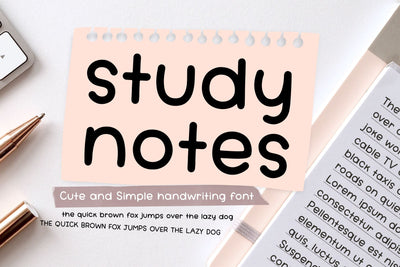
Study Notes - Cute Handwriting Font
Study Notes is a neat, clean and cute handwritten font. You can use this font in various projects - blog posts, logos, branding, digital planner, digital notes, invitations, greeting cards, planners, digital journal, photo albums, study notes, school notes, college notes, decorations and much more. Its authentic look and feel will add a personal and realistic feel to your designs.
The font includes uppercase, lowercase, numbers, punctuations